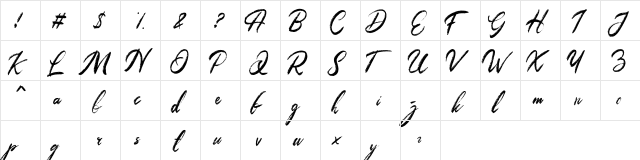
Meadows Regular
| Foundry | WyareCreatype Co. |
| Designer | Yudi Setiawan |
Design Context for Meadows Typeface
Meadows is a composed and adaptable typeface that performs quietly and consistently across a wide range of design contexts.